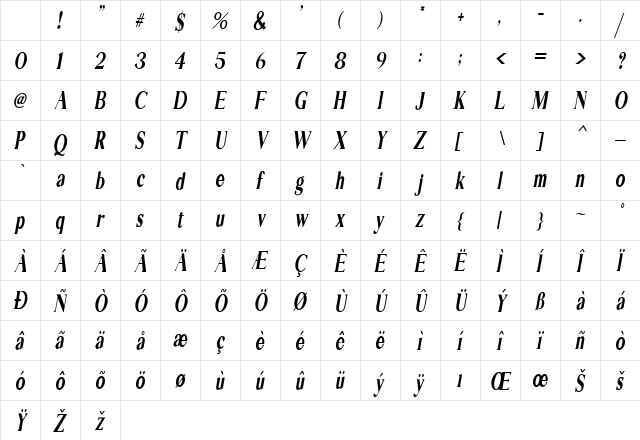
Complete EXTRA Serif Italic glyph index. Displaying only characters natively supported by EXTRA Serif Italic font.
EXTRA Serif carries the refined structure of traditional serif typography, with bracketed terminals and considered proportions that communicate credibility and craft. The slanted form adds forward momentum and visual energy.
Pro Tip: Use EXTRA Serif for editorial body copy and considered headline work. Pair with a neutral sans for UI elements or captions to create a classic hierarchy.